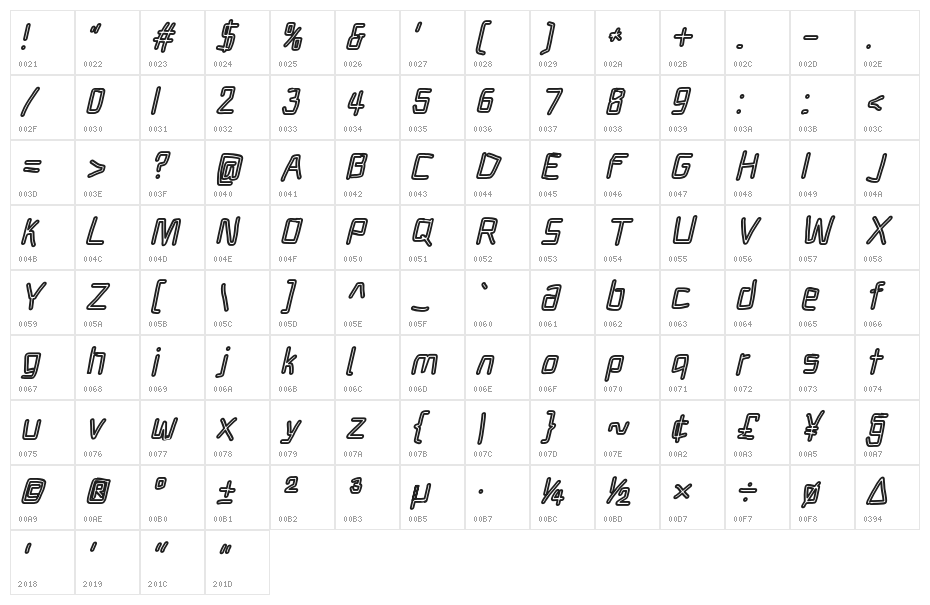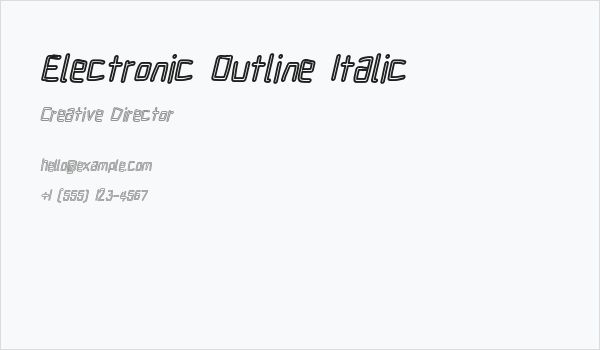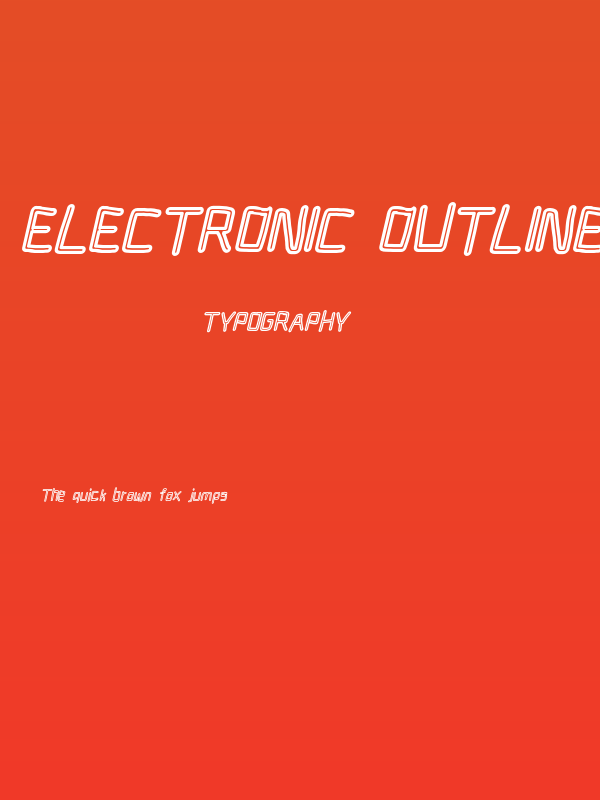
Electronic Outline Italic Font
Electronic Outline Italic Description
This font features a modern, electronic-inspired outline style with a distinct italic slant. The characters are designed with a hollow interior, giving them a futuristic and digital appearance. The uppercase and lowercase letters maintain a consistent style, with sharp angles and clean lines that enhance readability. Numbers and special characters follow the same design principles, ensuring uniformity across all glyphs. The font's unique outline effect makes it stand out, ideal for projects that require a tech-savvy or contemporary look.
Proposed ProjectsIdeal for technology branding, digital media, video game interfaces, and futuristic poster designs.